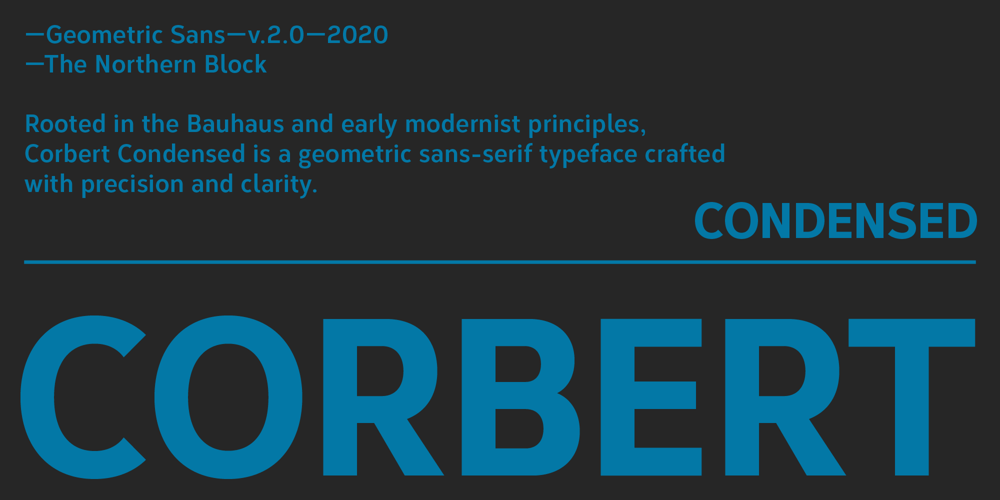
Corbert Condensed Font Family was designed by Jonathan Hill and published by The Northern Block. Corbert Condensed contains 18 styles and family package options. Corbert Condensed is a space-efficient and narrower variant derived from the original Corbert typeface. This condensed version, approximately 15% slimmer than its counterpart, is specifically designed to optimize space utilisation in text layouts and complex design projects. The typeface maintains the geometric sans-serif characteristics of the original Corbert, reflecting precision and clarity in its design.By offering a condensed option, Corbert Condensed enables designers to tackle various challenges, particularly when faced with narrow columns, tight layouts, or projects that demand efficient use of space. This versatile font system, combining the original Corbert with its condensed version, provides a seamless and unified typographic solution suitable for a wide range of applications.Details include nine weights with italics, 540 characters per style, alternative lowercase a, e and g, five variations of numerals, manually edited kerning and OpenType features.